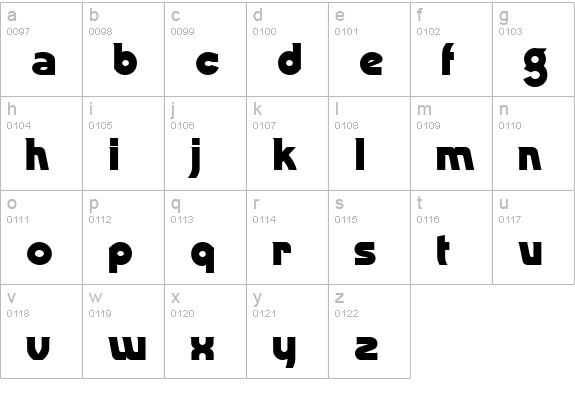
Rondo Normal is the standard, neutral variant in the Rondo typeface family \xE2\x80\x94 well suited to general body text, paragraphs, and standard typographic work.
Rondo Normal font is a versatile and stylish typeface that exudes elegance and sophistication. With its clean lines and smooth curves, this font is perfect for a wide range of design projects, from invitations to logos to branding materials. The timeless appeal of Rondo Normal font makes it a popular choice among designers looking to add a touch of class to their work. This font is available for free download at FontsMarket.com, where you can easily access and use it for both personal and commercial projects. Its seamless integration into various design applications makes it a must-have in any designer's toolkit. Embrace the timeless beauty of Rondo Normal font and elevate your designs to new heights.